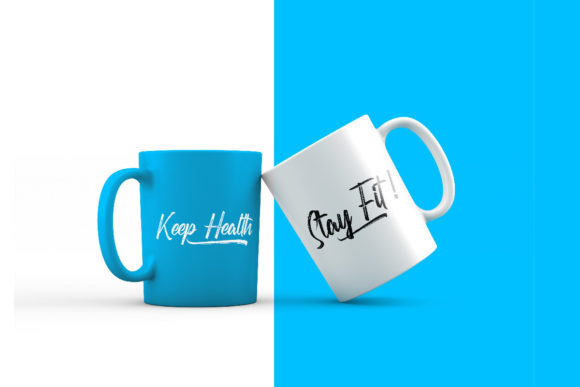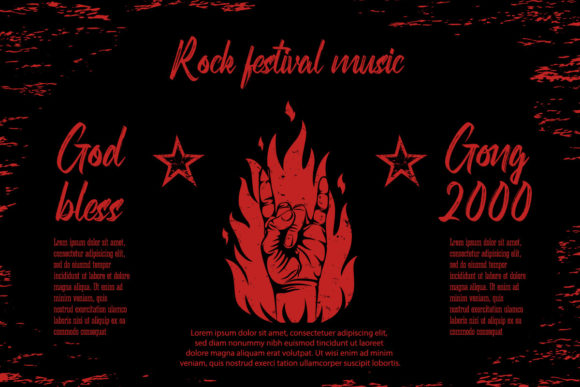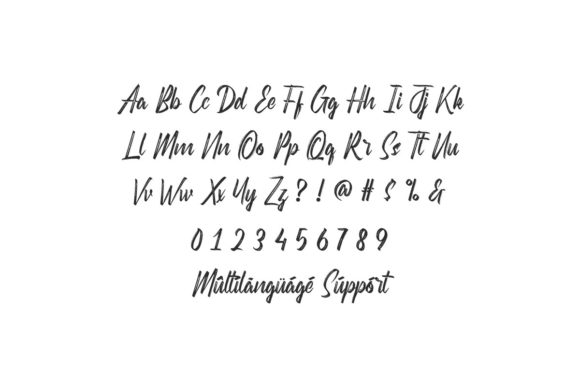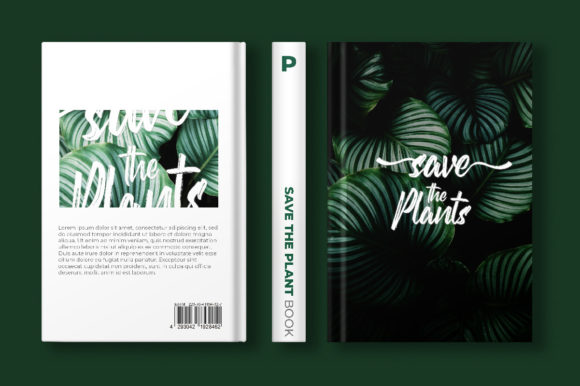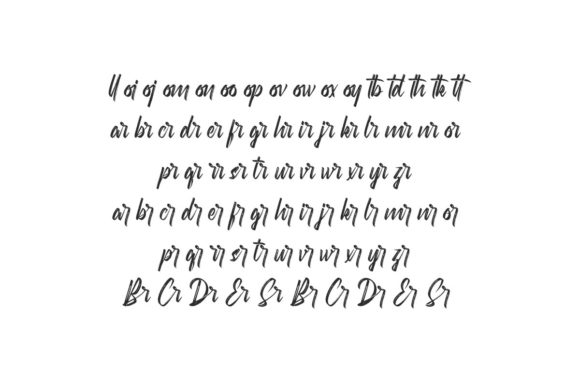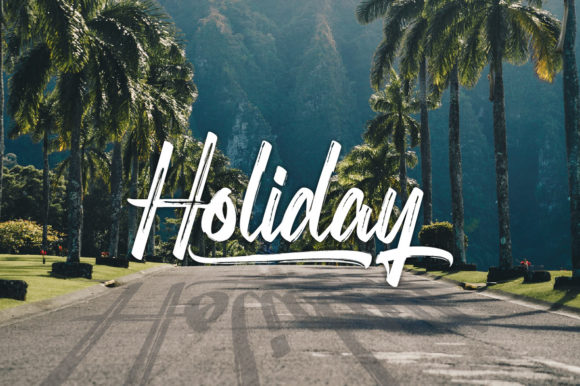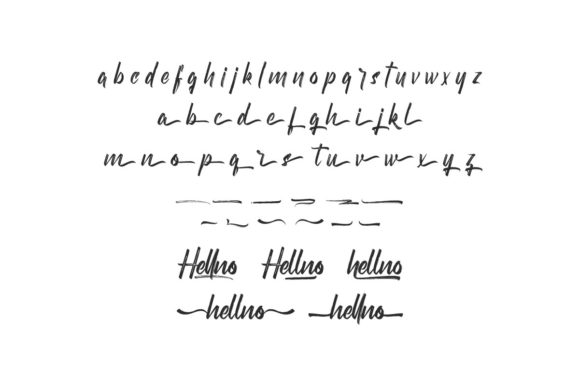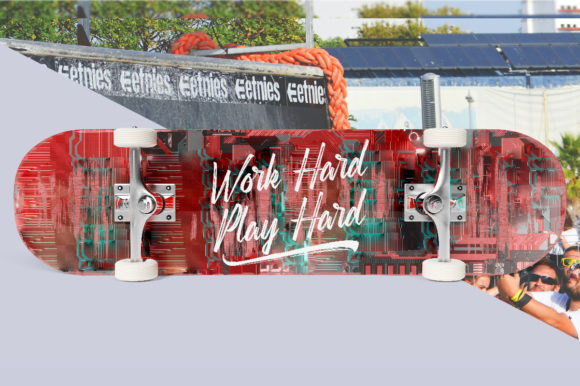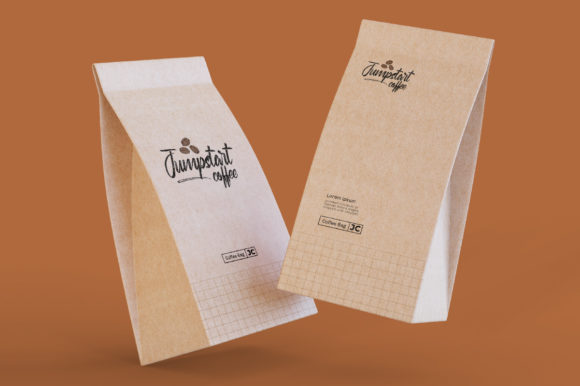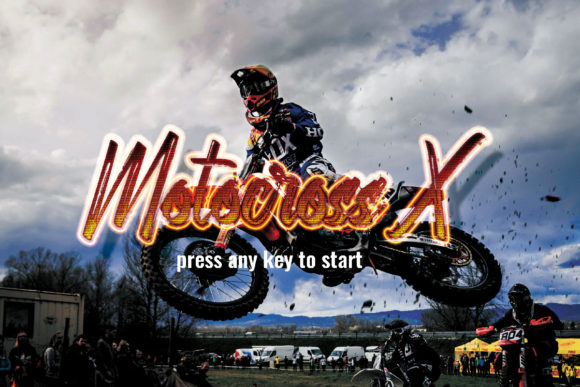
Hellno Font
About Hellno Font
Hellno is a trendy, brushed and flowing script font. It is PUA encoded which means you can access all of the amazing glyphs and ligatures with ease!